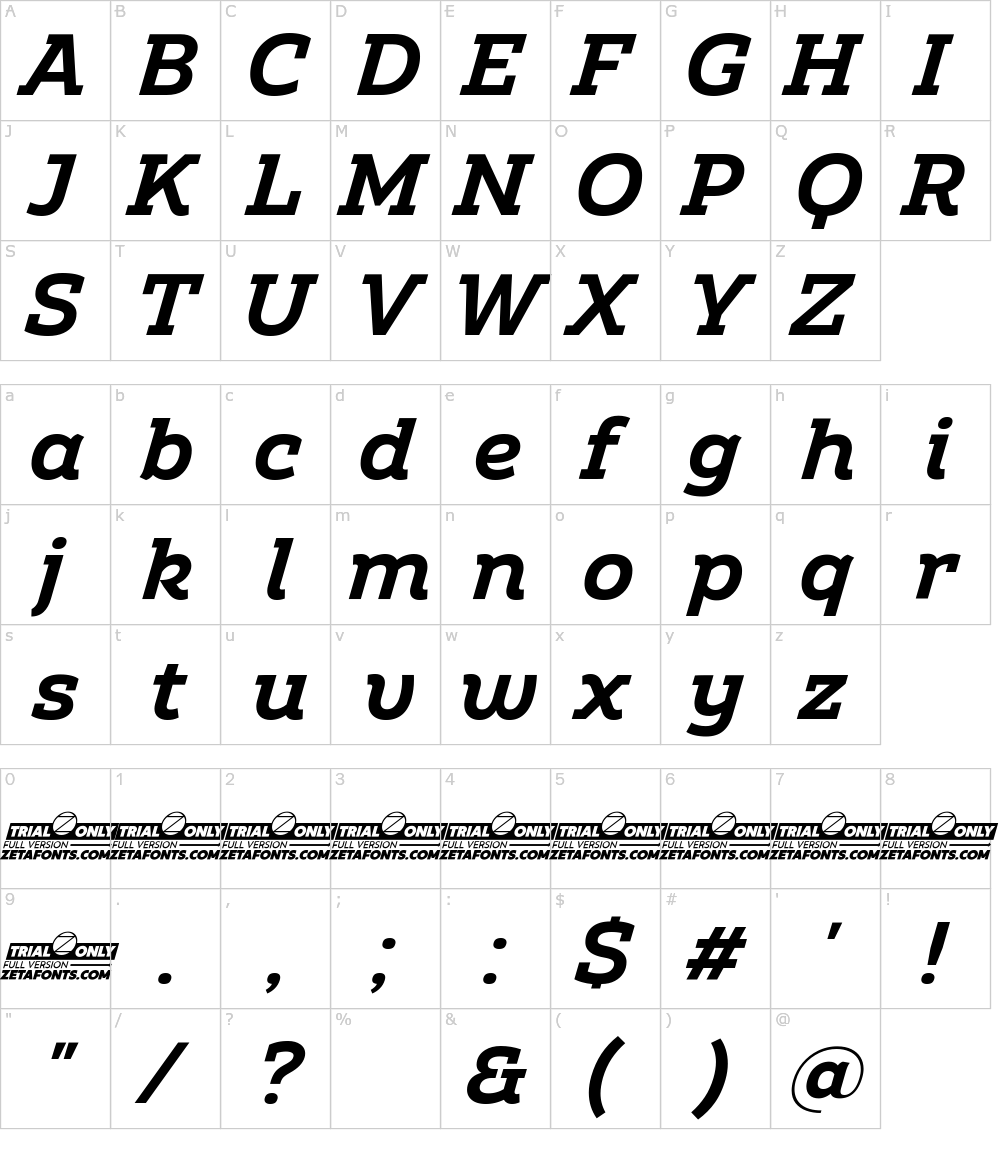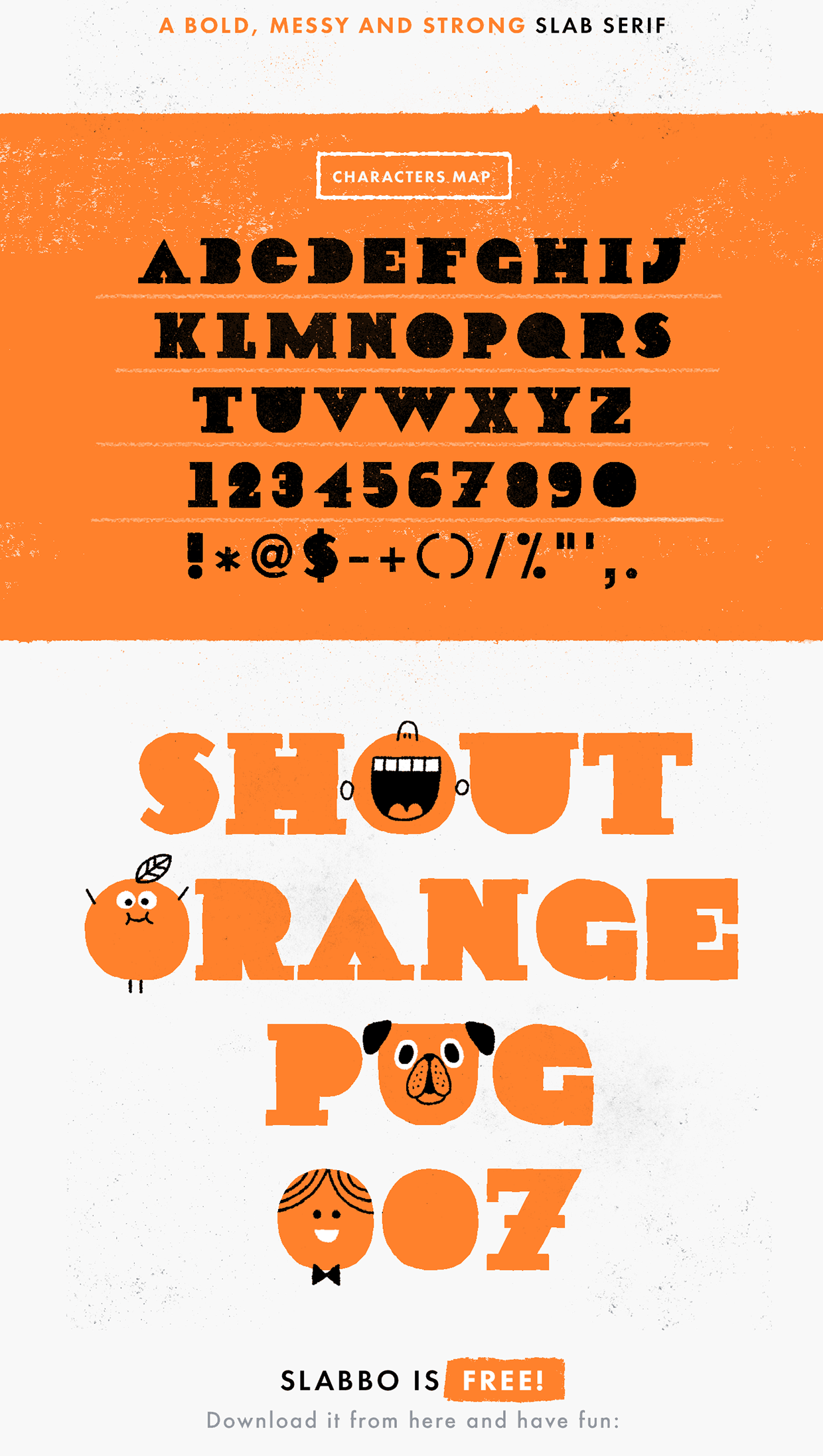
Famous Free Slab Fonts References
Famous Free Slab Fonts References. Free fonts often have not all characters and. Slab serif fonts are quite stylish and attractive and are versatile enough to be used in many different contexts.
They’re also currently very popular among web. Best free slab serif fonts. A b c d e f g h i j k l m n.
Check out 10 you can use in your next project here. Free fonts often have not all characters and. There are 7 different styles that you can apply in your design projects.
Available for free for both personal and commercial purposes, adena is a slab serif font that has a touch of contemporary charm to it. He brings us some unique “old style” feeling which is presented in contemporary curves that. Here are 15 outstanding options you can.
30,000+ best fonts download eroika slab font is a robust, display serif, intended to be set large. Boldie slab font is a groovy retro slab serif typeface crafted & designed by fortunes co. While for most serifs, display means high contrast, eroika’s “displayness” stems.